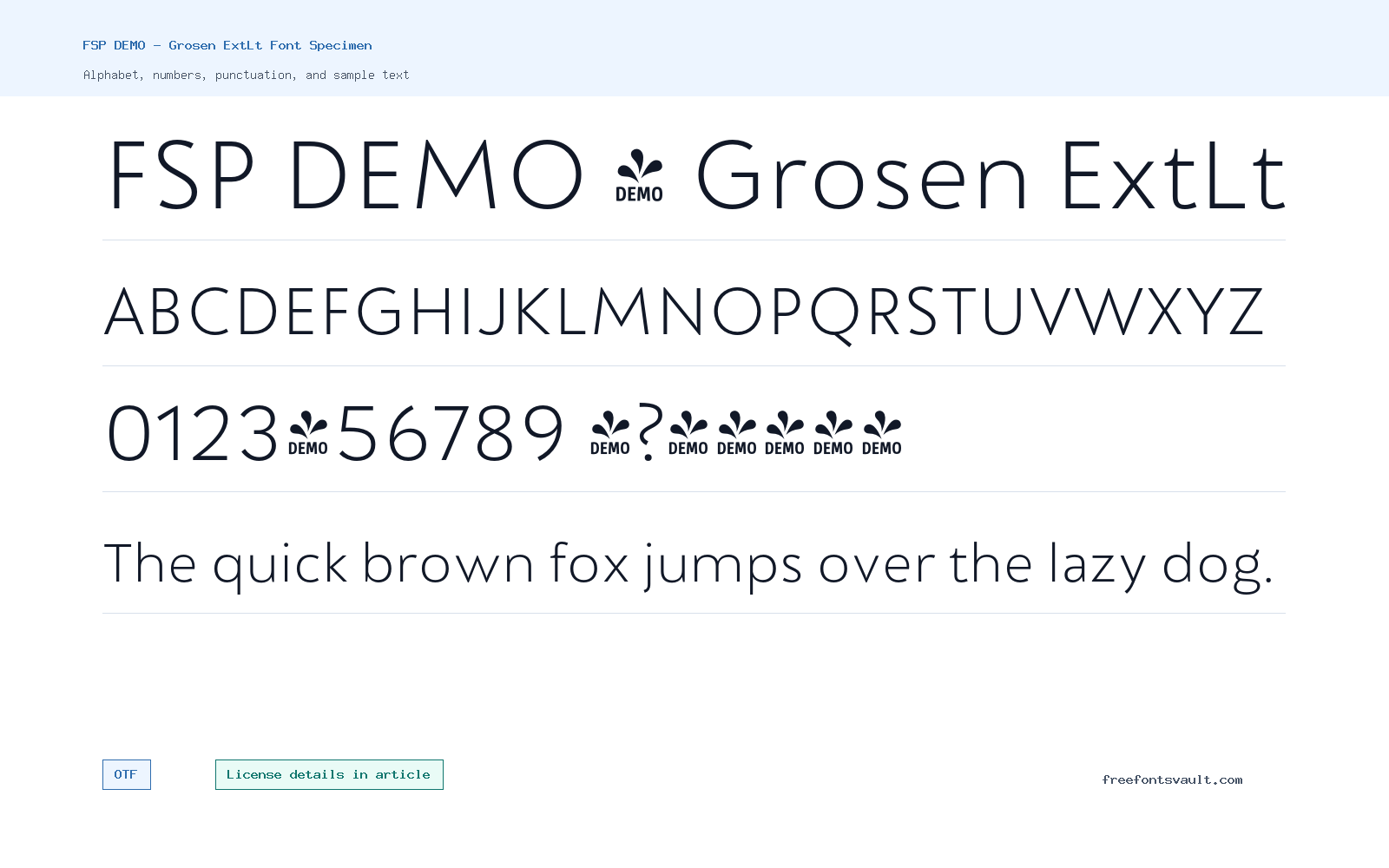
FSP DEMO - Grosen ExtLt
FSP DEMO – Grosen ExtLt font.
FSP DEMO – Grosen ExtLt is a thin, extra-light display font for designs that need a clean and restrained voice. Its 200 weight gives headlines an airy look, but that same delicacy means it should be tested at real size before you commit to a layout.
About FSP DEMO – Grosen ExtLt
Grosen ExtLt is most useful when the type has space around it. Think large titles, elegant poster lines, portfolio headings, fashion-style graphics, invitation text, or a minimal hero headline. The strokes are light enough to feel refined, but they can disappear if the text is too small, too low contrast, or placed over a busy image.
• ExtraLight 200 weight for a delicate, modern display look.
• Normal upright style, useful when you want clean typography without slant or script movement.
• Works best at larger sizes where thin strokes stay sharp and visible.
• Strong fit for minimal layouts, elegant titles, and quiet brand exploration.
• Large headings, covers, posters, portfolios, and presentation title slides.
• Minimal invitation designs, fashion graphics, product labels, and editorial-style layouts.
• Short phrases with generous spacing, especially on simple backgrounds.
• Design drafts where you want a refined tone before selecting a licensed production font.
• Pairing with a readable body font for descriptions, menus, or longer text.
Preview at the final display size, not only in a large specimen. Thin fonts can look beautiful in a preview and then lose clarity in a small banner or compressed social image. Keep backgrounds simple, increase contrast, and test numbers and punctuation if the design includes dates, prices, or product labels.
What kind of font is FSP DEMO – Grosen ExtLt?
It is an extra-light OTF display font with a clean upright style and a 200 weight. It is best for short, spacious text rather than long paragraphs.
Who designed Grosen ExtLt?
The credit line names Oguzhan Cengiz, with Hurufatfont Type Foundry as the foundry.